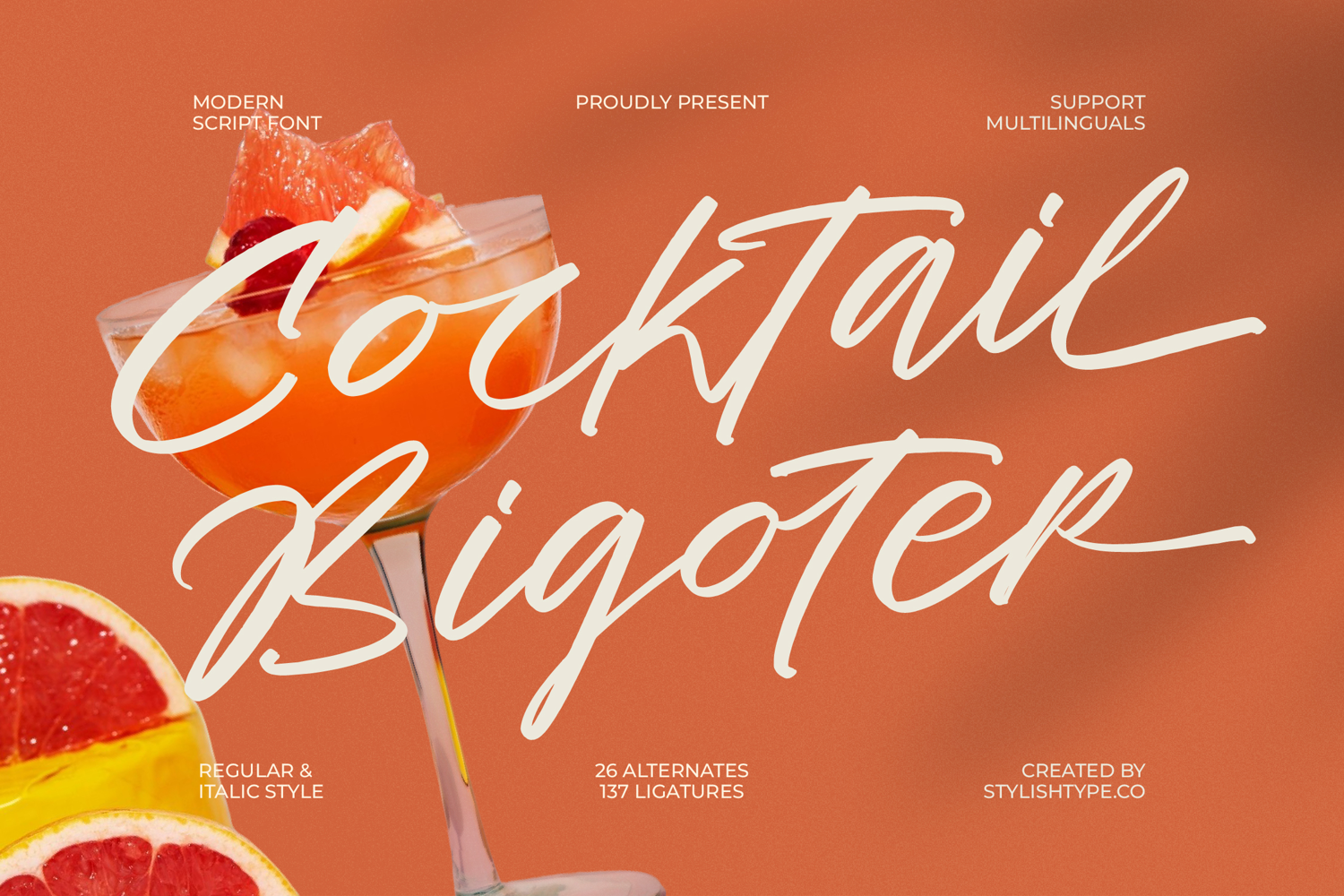
Cocktail Bigoter - Modern Script Font
Cocktail Bigoter Italic
Cocktail Bigoter
Inject instant personality and dynamic flow into your designs. Cocktail Bigoter - Modern Script Font is a breathtaking, high-impact script typeface that embodies spontaneous elegance. Its brush-like texture and dramatic, sweeping strokes create a look of effortless sophistication, perfect for projects requiring a touch of authentic, modern flair. This font achieves a dynamic balance between handmade authenticity and polished readability, ensuring your headlines grab immediate attention and maintain a contemporary edge.